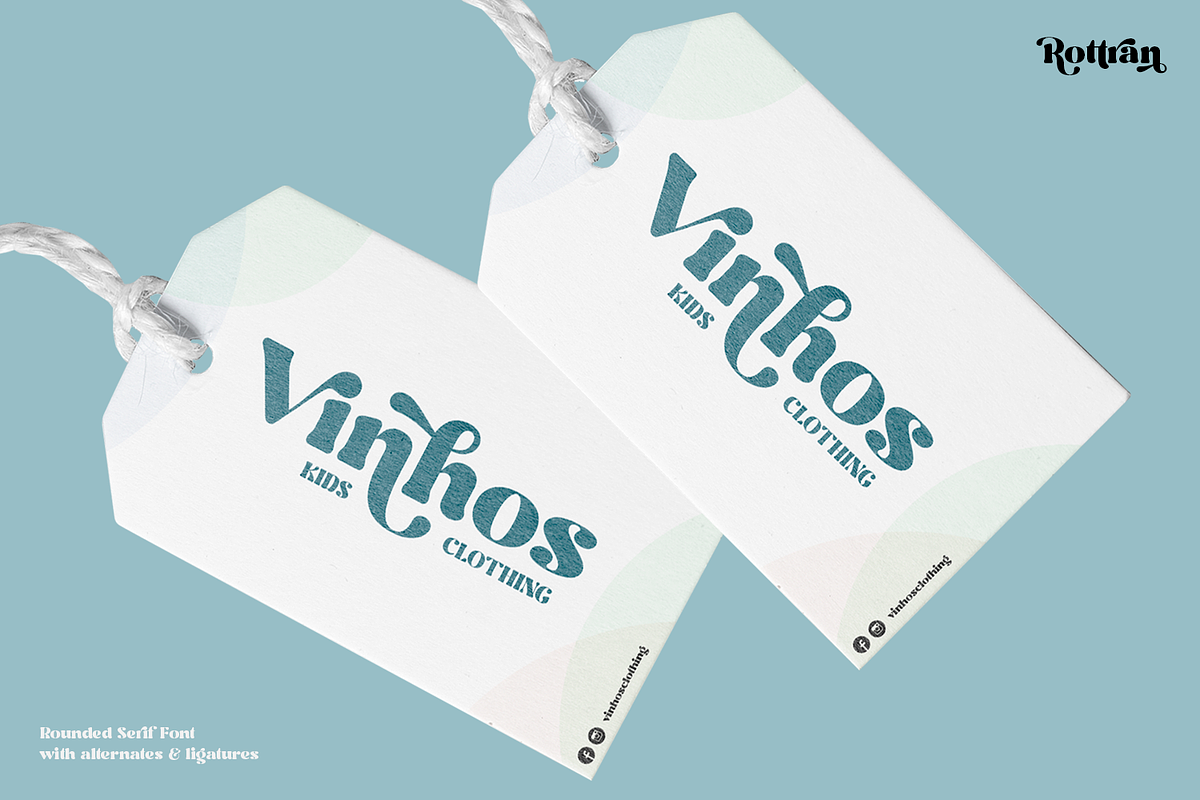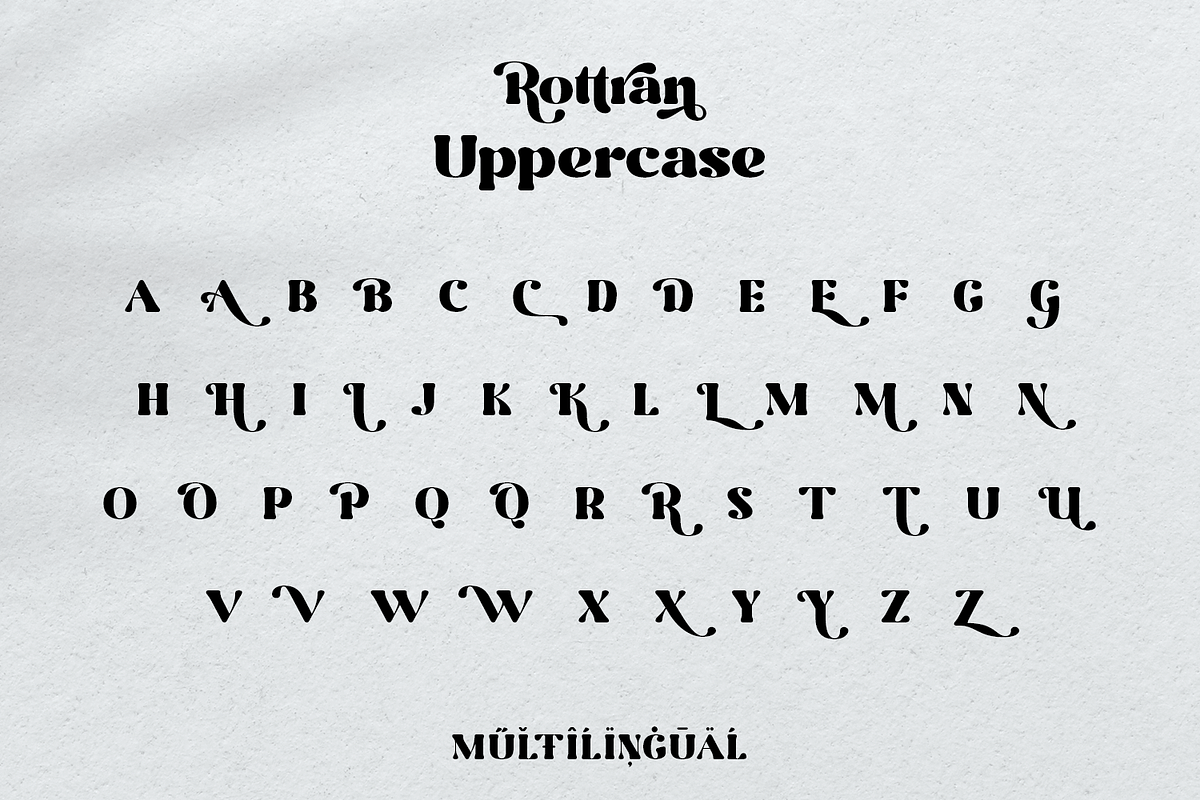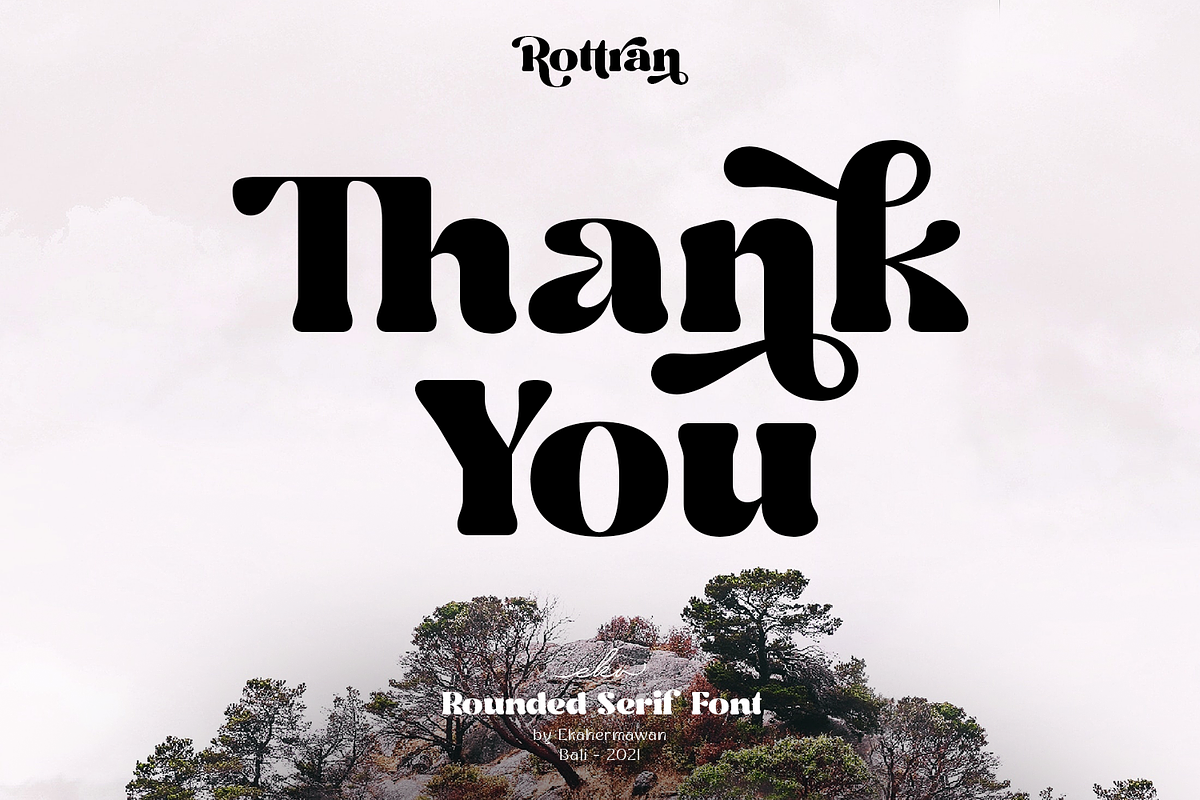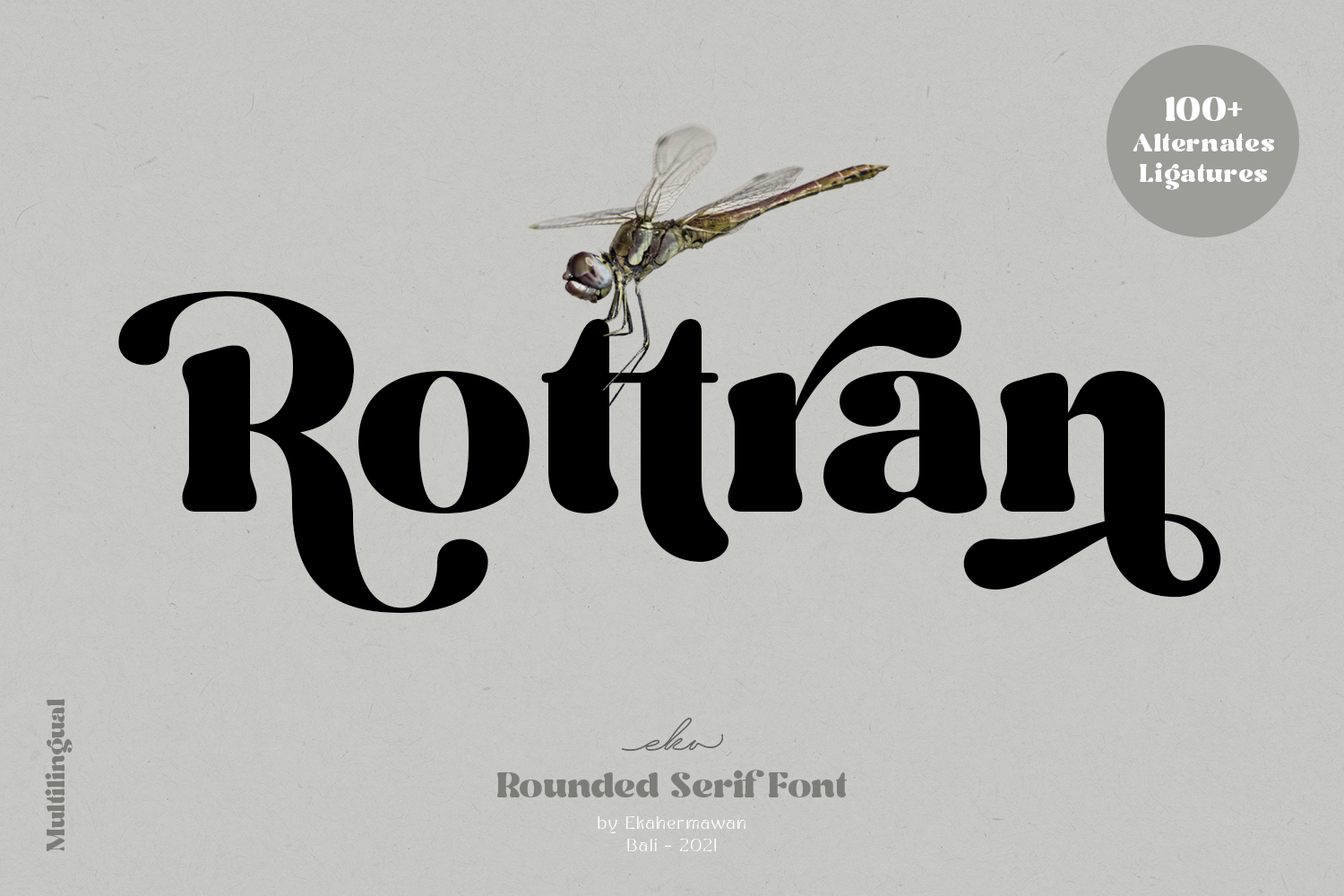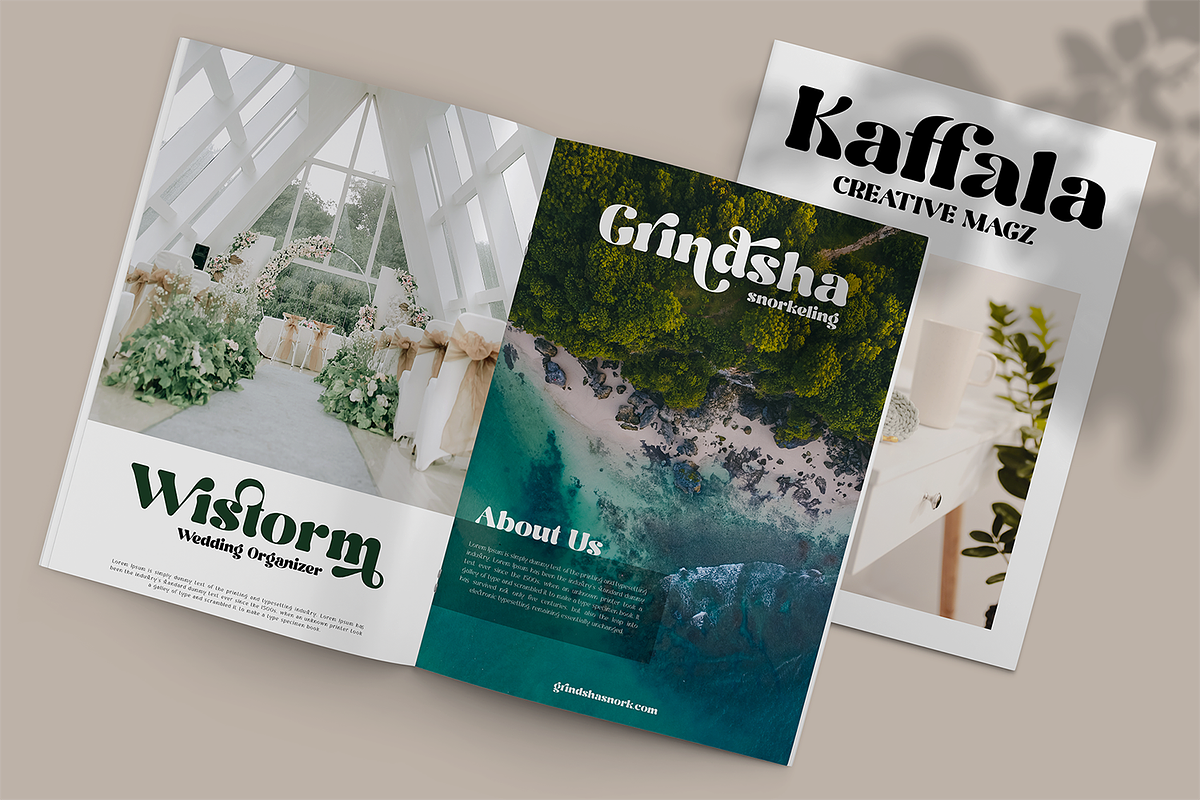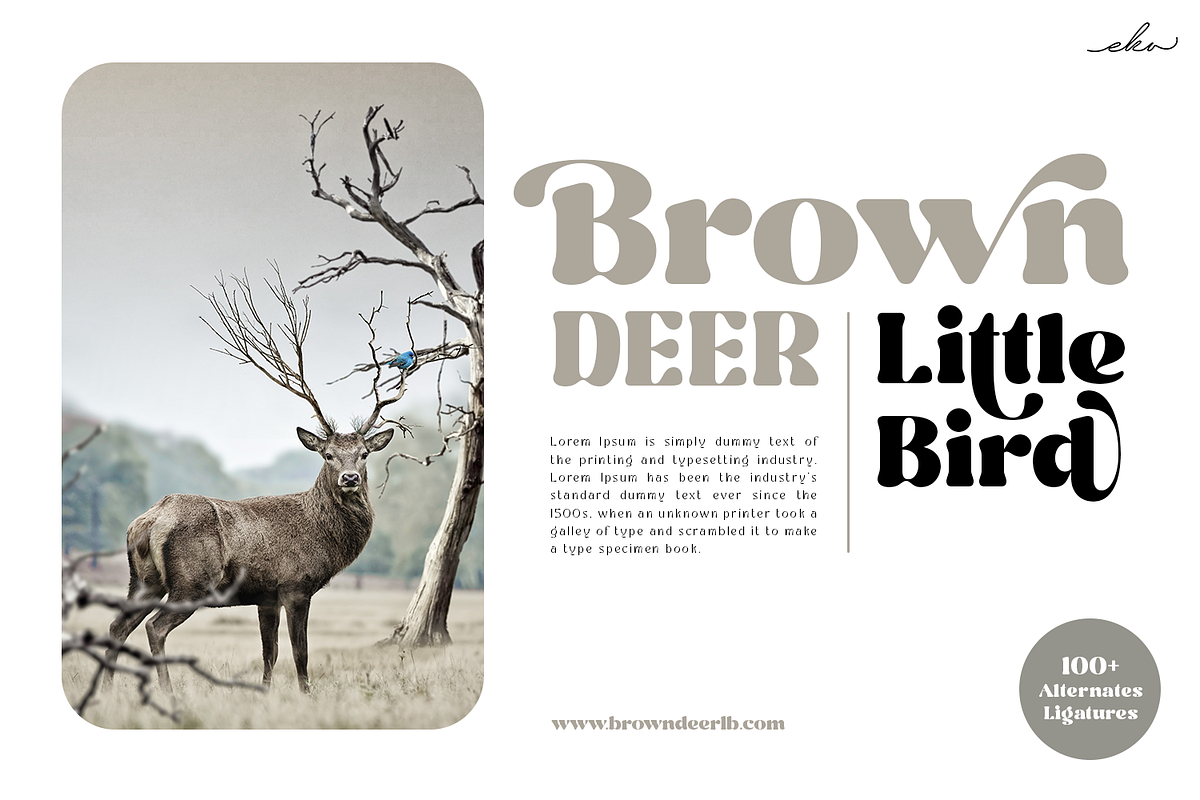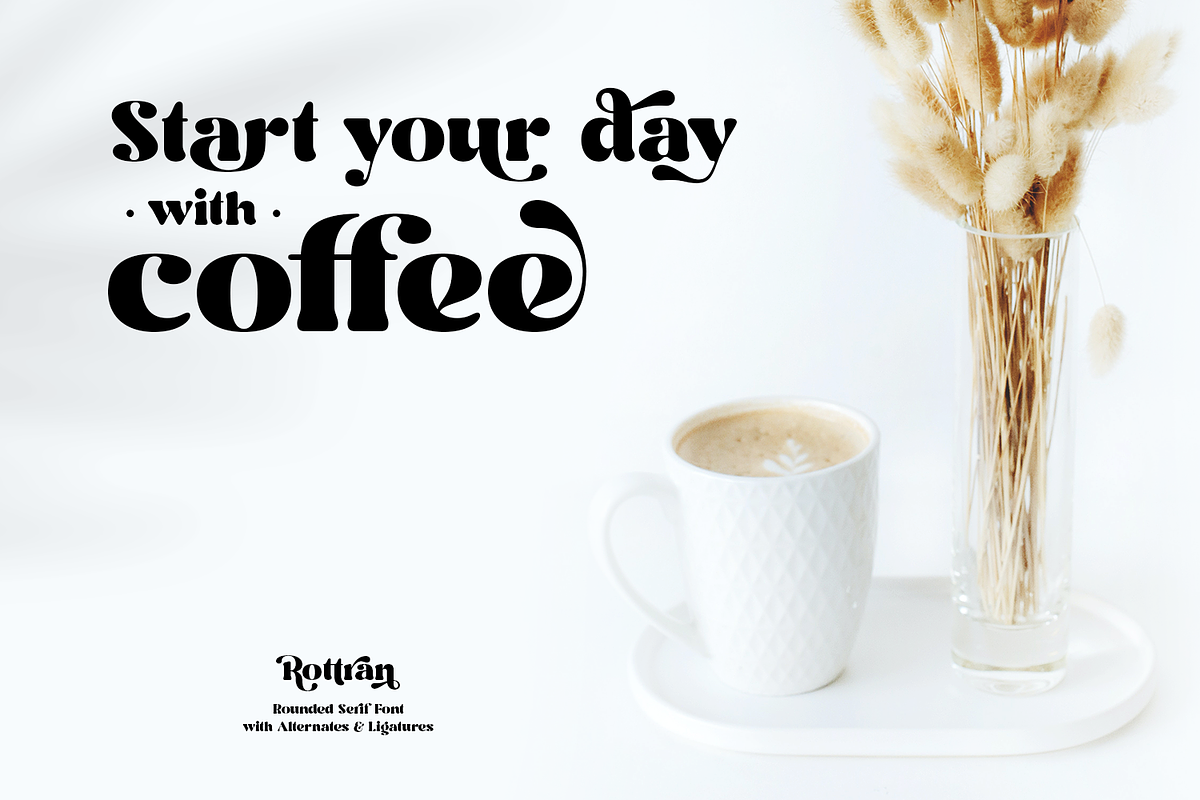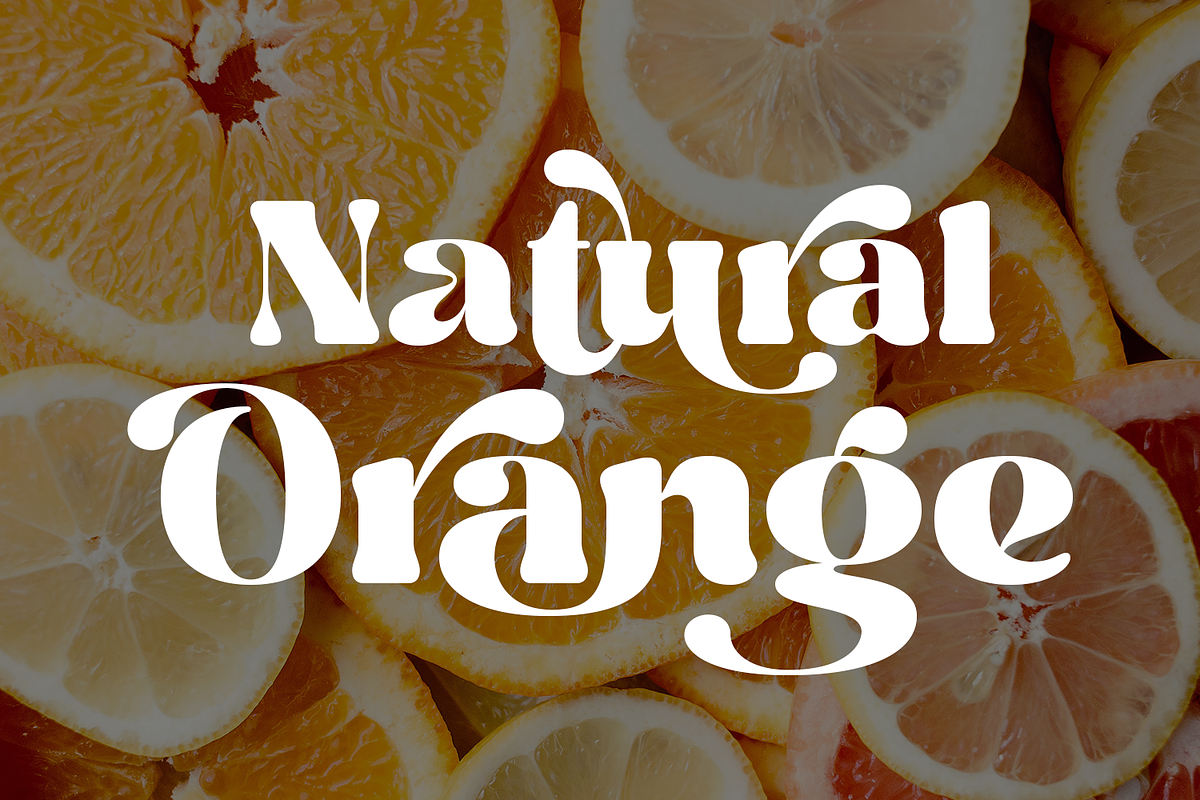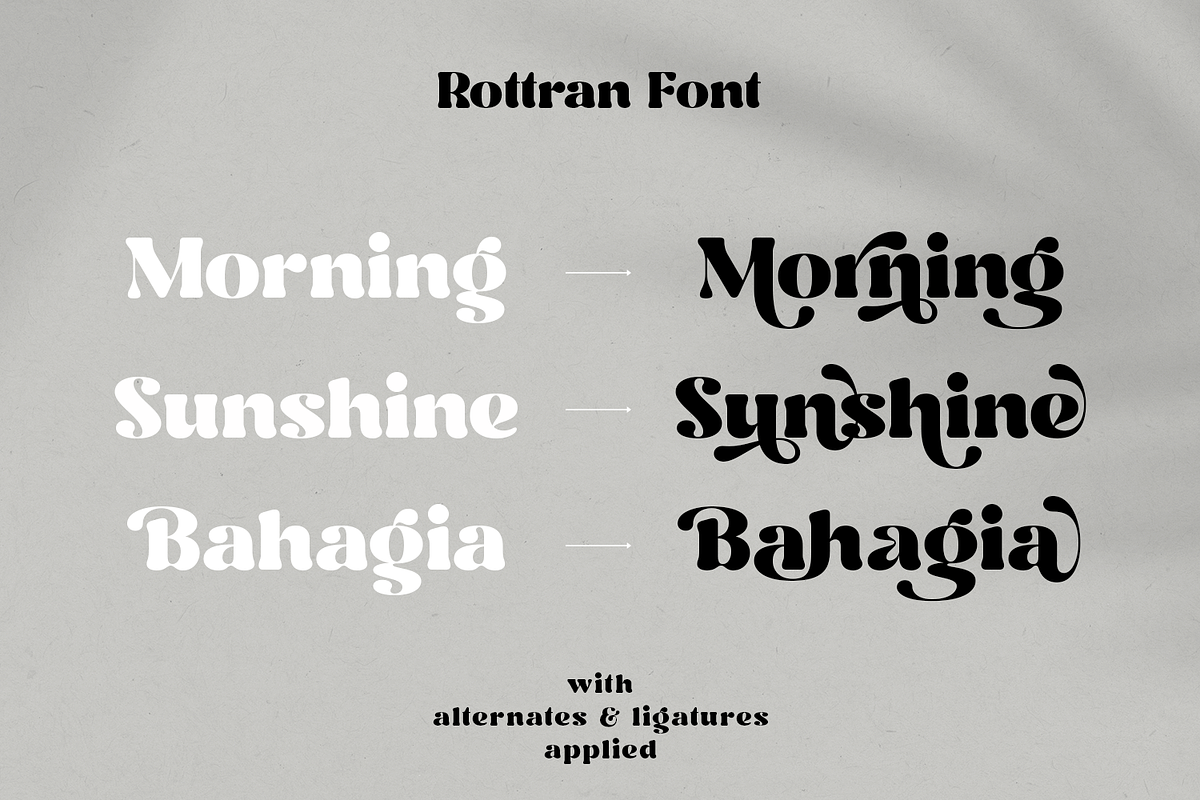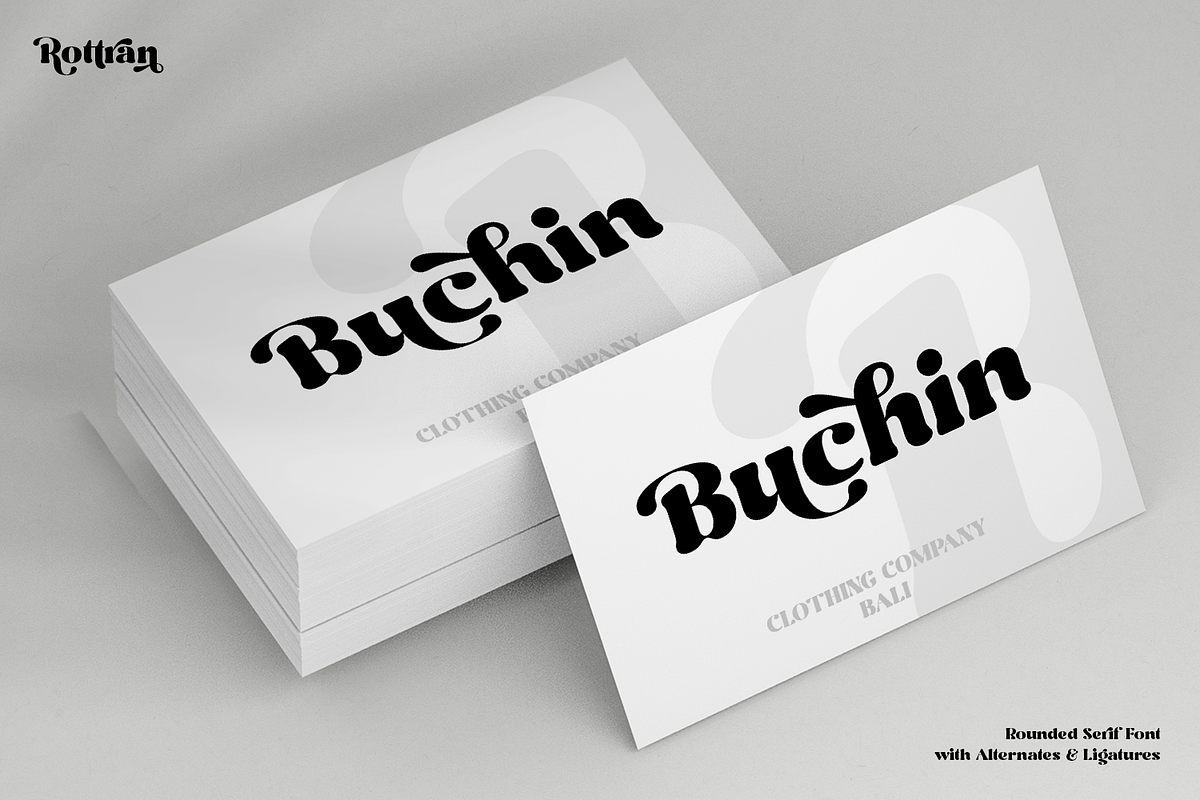
Rottran - Rounded Display Serif Font
Rottran is a rounded serif font. Rottran is including with more than 100+ alternates characters (PUA Encoded) and ligatures characters that give you a wide range of typographic design results. Rottran is a versatile font for many design project such as logo design, branding, poster, magazines, labels, merchandise, invitation, presentation, advertising and so much more!
- Playfull to use (with ligatures and alternates options)